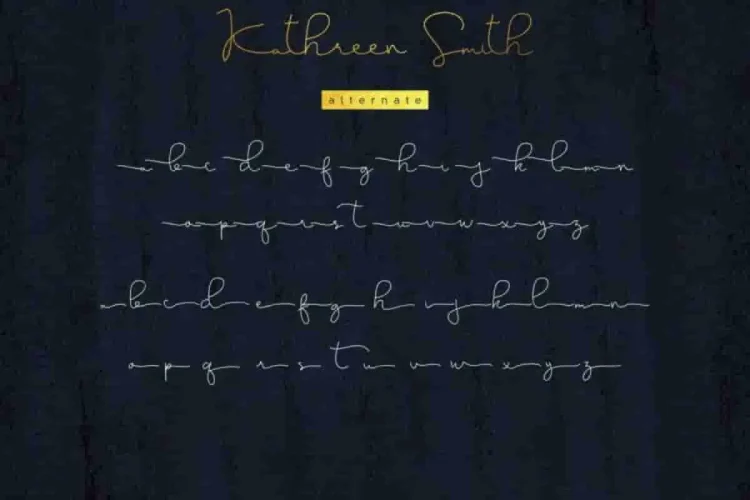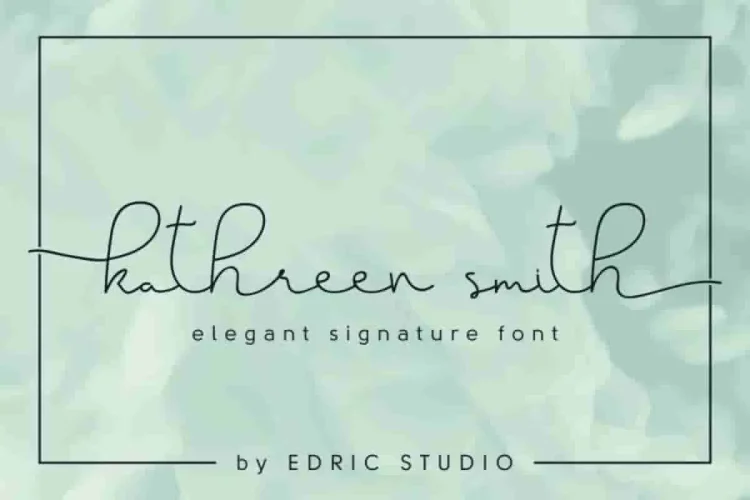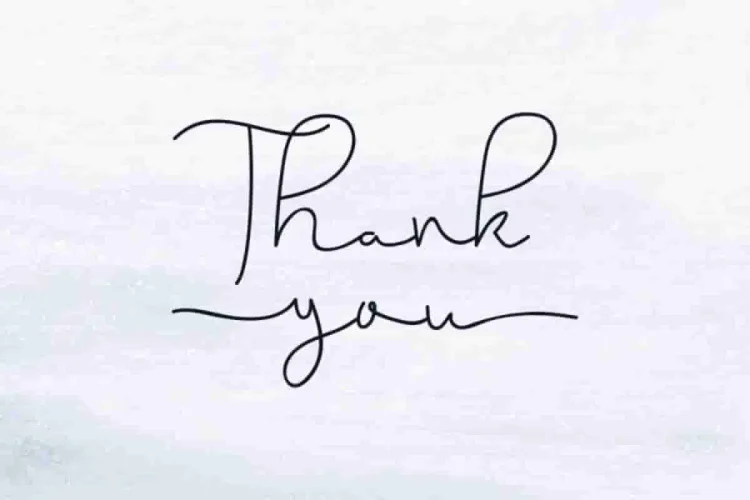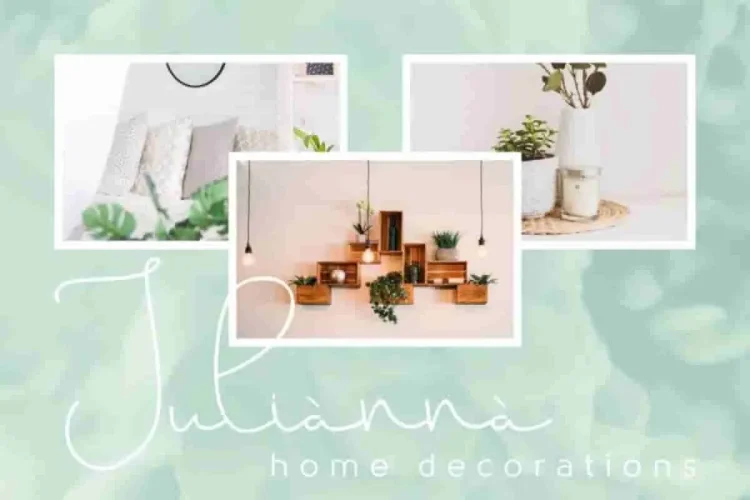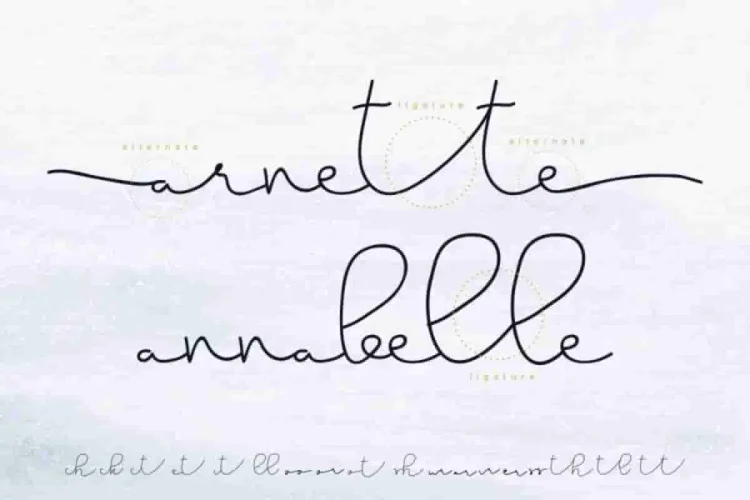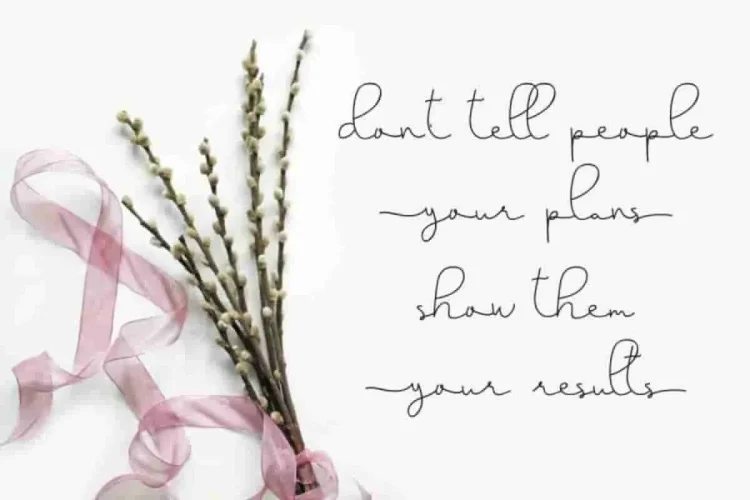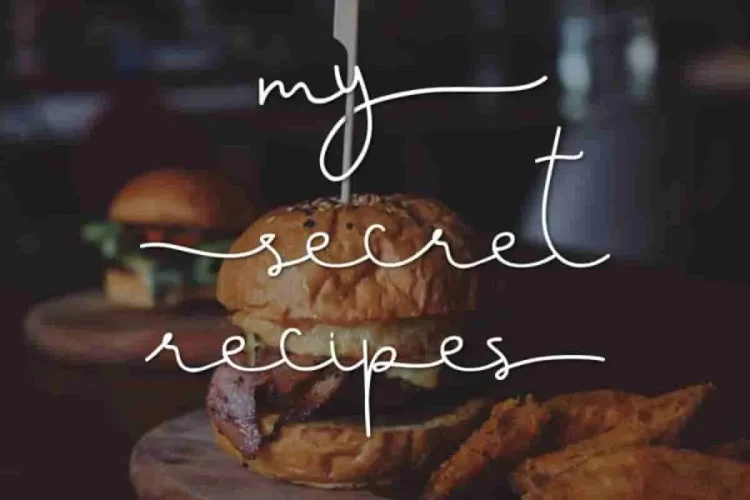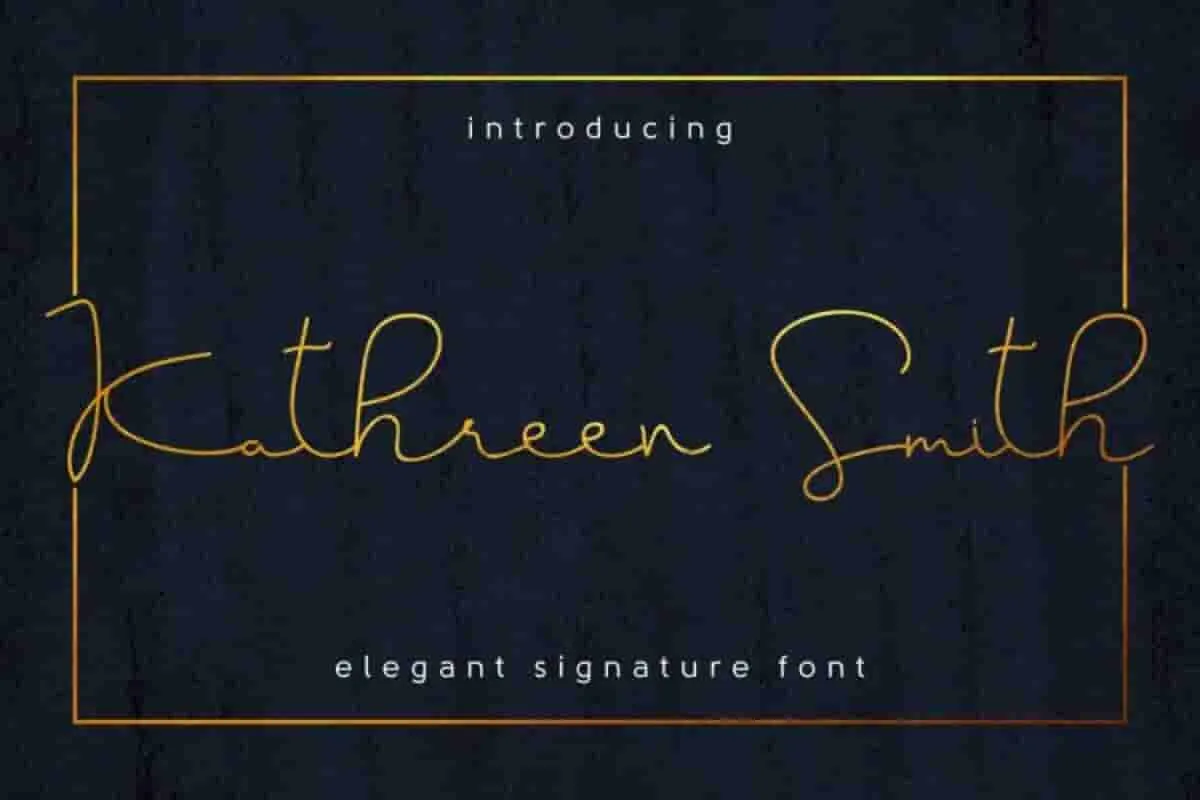
Kathreen Smith Elegant Signature Font
Introducing Kathreen Smith Font! our newest font with simple handwriting style. It is great for signature look, letter, invitation, flyer, brochure etc.
This beautiful and simple Handwriting font script features clean monoline strokes. Moreover, it comes with a complete set of international language characters. With its stunning glyphs, Because of its versatile style, Kathreen Smith Font will be perfect for any cases of all your projects/ products like logo (with extended license), branding, cover, banner, social media, magazine, product label, tag, etc
Kathreen Smith Font will be awesome for many professionals : musician, event organizer, gardener, photographer, architect etc